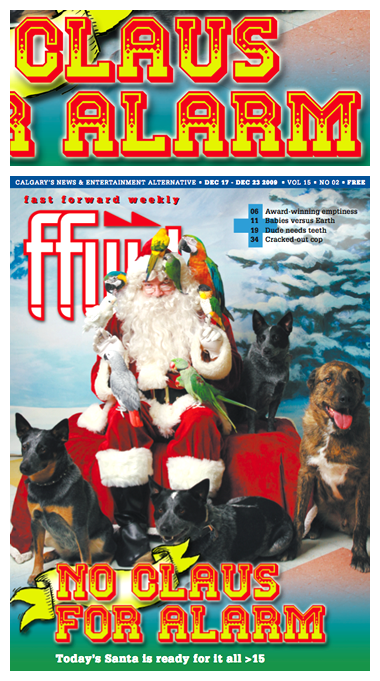
Beautiful decorated font: I like the white outline suggesting an inner emboss that contrasts with the external 3D effect!
ok, everyone, we'll play some democracy here: i'm not sure if i should leave the lower case letters just blank like this. i had the idea to fill them with the same pattern, but upside down (black at the bottom, white at the top)... if you'd prefer that to the blank letters, let me know and your wish shall be my command...
ok, i'm not sure what political scientists would say about the time span of this voting, but i consider this a 100% majority... so here you are with the inverted fills. i actually had the same impression about the military look that didn't fit into the whole decorative concept, i cloned the blank ones for your standalone idea and made this one consistently decorative.
i really like the stencil idea, too... i'm gonna work on this one as soon as i find the time!
Truly gorgeous. And so many characters. wonderful work!
Definitely more consistent with the inverted fill in lowercase letters. Great work!
truly excellent use of the applet.
i think its the highest level of being creative to work with bounded conditions!
great idea to just choose the invertation!
im simply impressed. super good work!
btw... i deeply respact people with the will to do somthing complete.
187 characters dammit!
That must've taken forever to make! Great job!
i really dig this font, well done sir!
Woderful work! Love it
Teatral was featured in my talk at the TypeCon Pecha Kucha. Here's a shot. There were 'oohs' and 'aahs'.
i think you should invert the letters in lowecase
Great work - respect
Awesome font, beautiful patterns!
I've adjusted the space width... Funny, haven't touched this for a year. I wonder how this would have been with all the new bricks and new features of fontstruct.
I just picked up a copy of ffwd weekly in Calgary, and guess what font they used on the cover!
Whoa, awesome!
Wow... On the cover! How cool is that!? I don't know the magazine myself, but Wikipedia tells me it has some 70'000 readers... I guess that's my biggest audience so far.:)
(They could have picked a different colour combination though... red/yellow looks a bit cheap.:P)
So the question is: to be happy about the wider audience and your fonts appearing even on magazine covers, or to grieve for the loss of control and potential license violations? So far I tend to choose the first option as I've never ment to make money with my 'structions... Might change some day though. :)
This is a great font.
elegante men